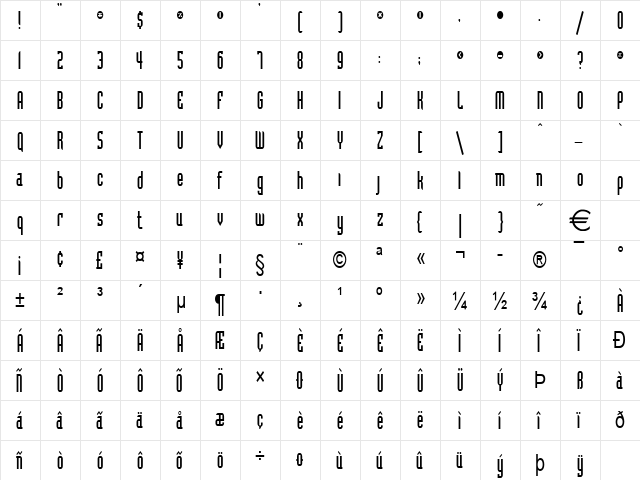
FlintstoneCondensed Normal
Design Context for FlintstoneCondensed Typeface
FlintstoneCondensed takes a measured approach to typography — its balanced proportions and neutral character make it a reliable workhorse for both digital and print work. The condensed width makes it efficient for tight spaces without sacrificing legibility.